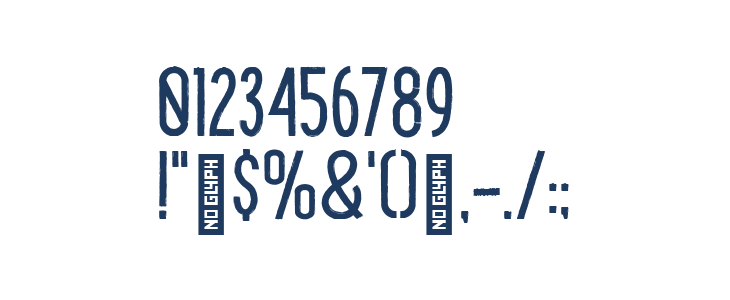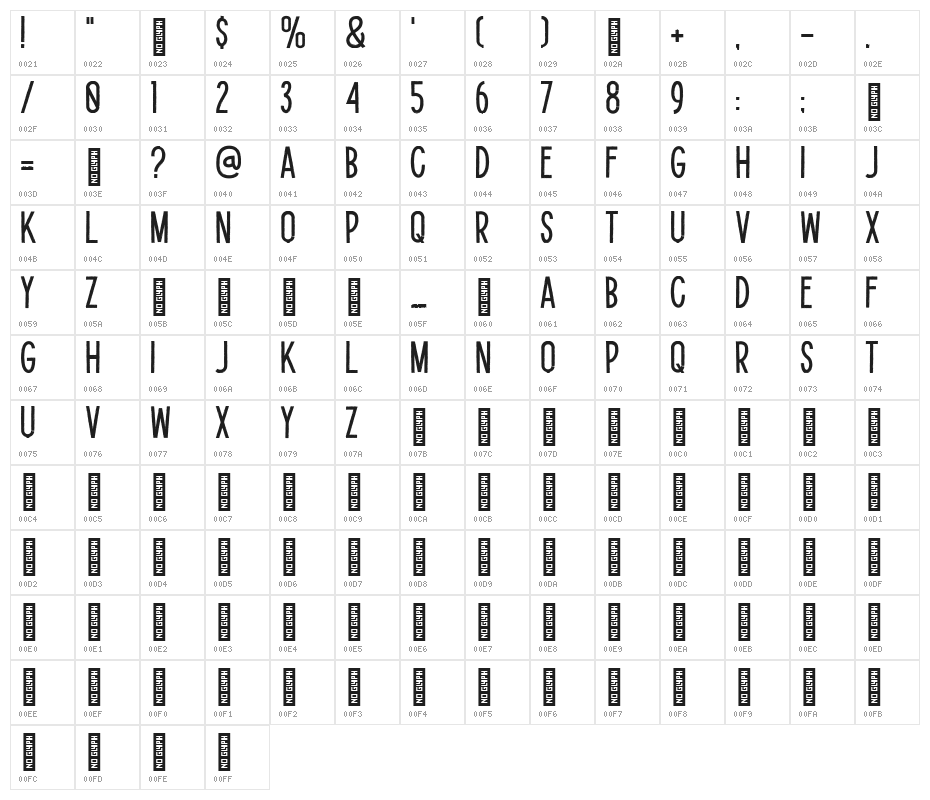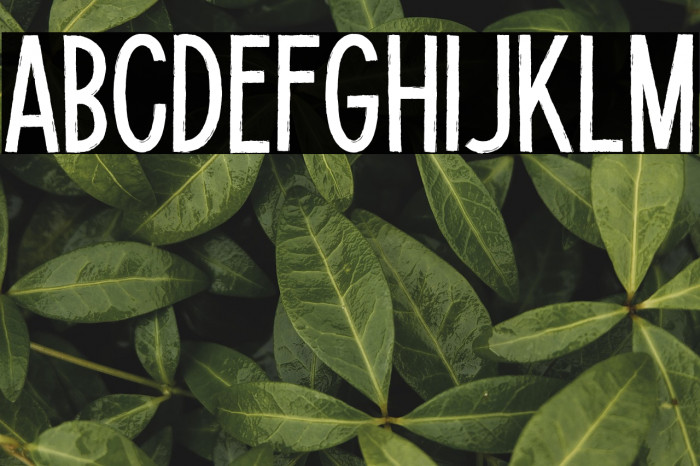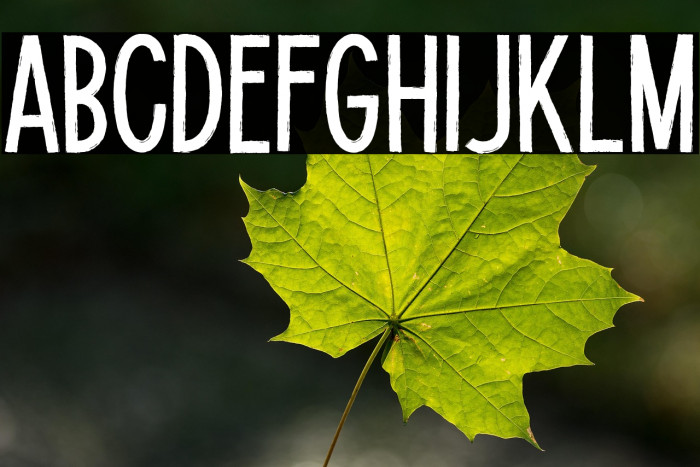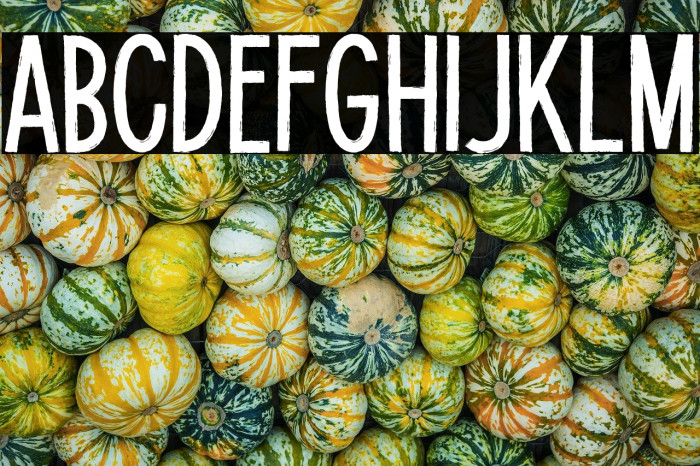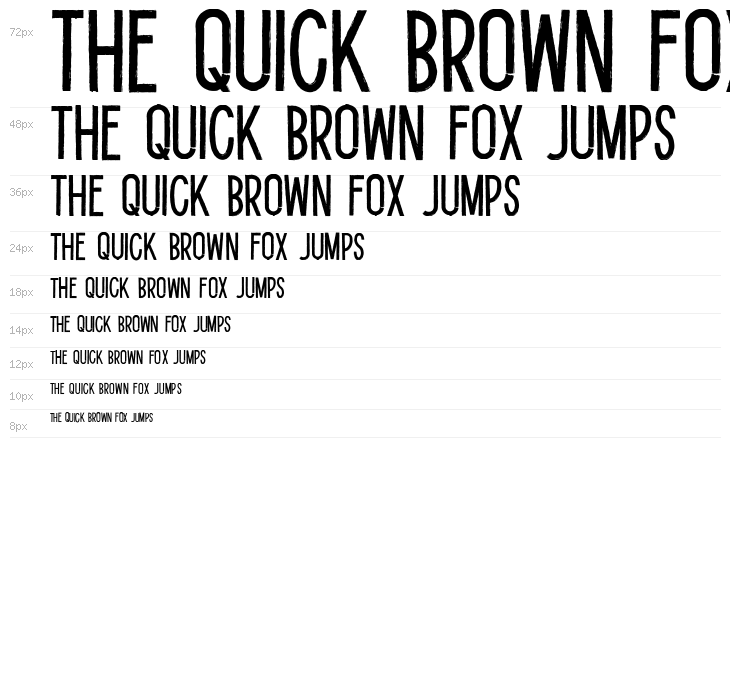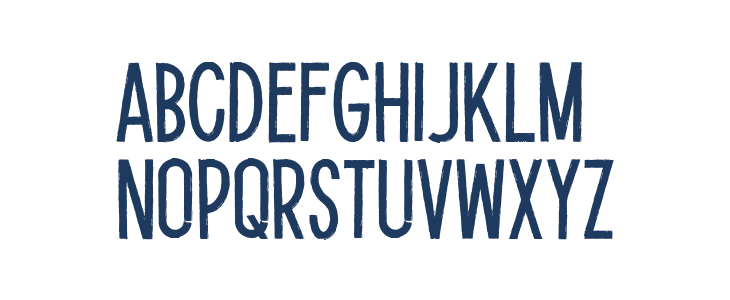
Potato Lite Font
Potato Lite Description
This font features a bold and impactful design with a hand-drawn aesthetic. The characters are tall and narrow, giving a condensed appearance while maintaining legibility. The strokes are uneven, adding a rustic and organic feel to the overall look. The uppercase and lowercase letters are consistent in style, with a slight variation in stroke thickness that adds character. The numbers are clear and distinct, matching the style of the letters. Special characters are included, maintaining the same hand-drawn quality. This font is ideal for projects that require a bold statement with a touch of personality.
| Overall Style | Rustic, Handcrafted |
| Proposed Projects | Perfect for posters, branding, packaging, and any design needing a bold, handcrafted look. |